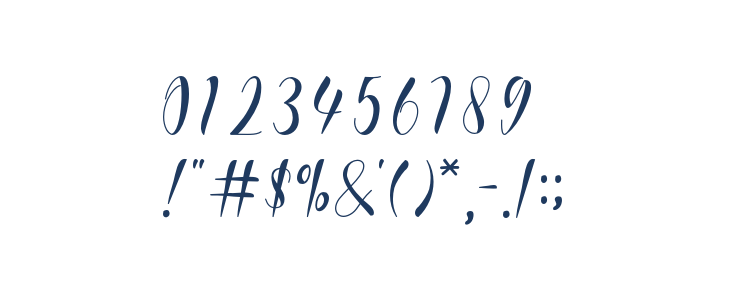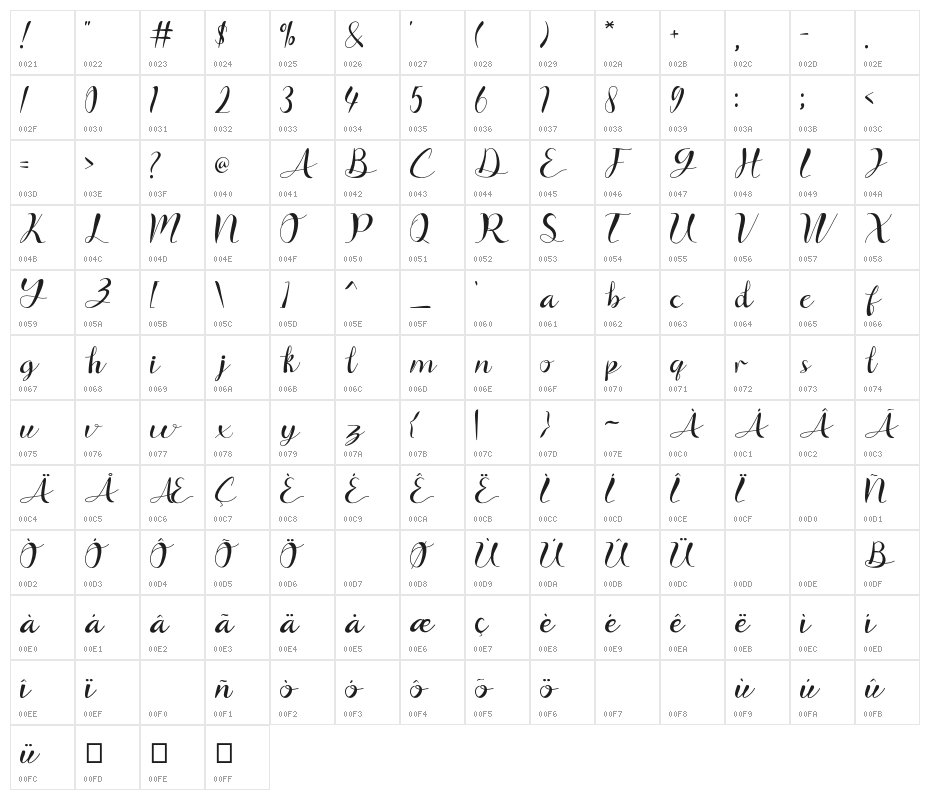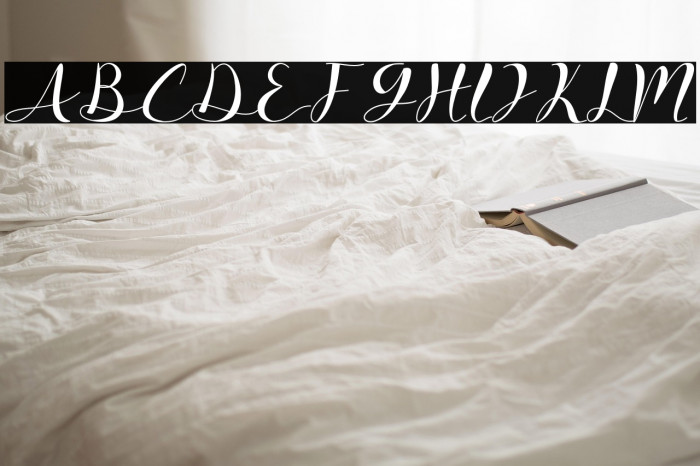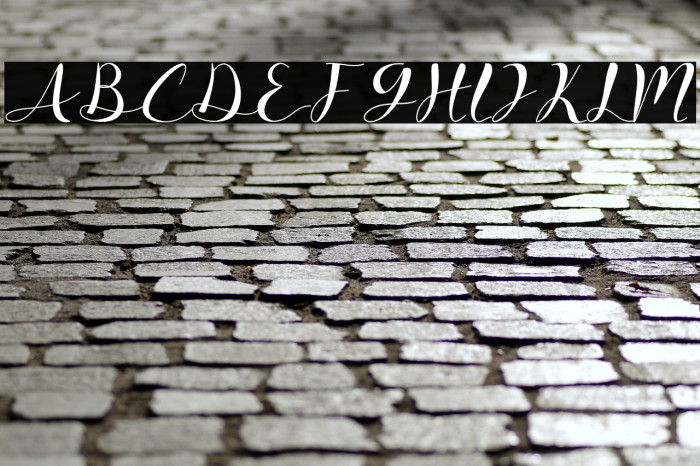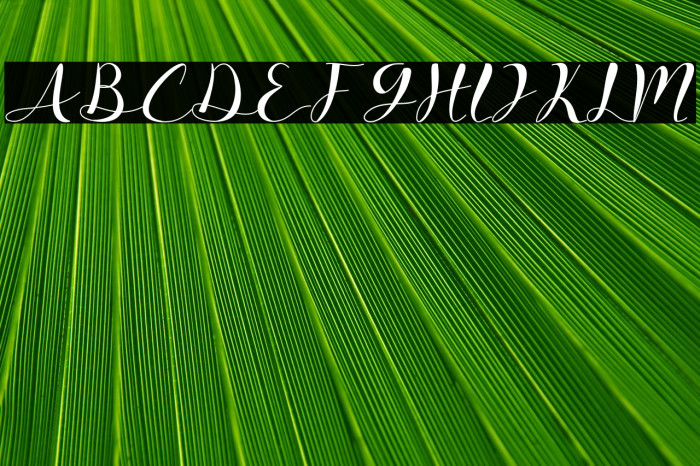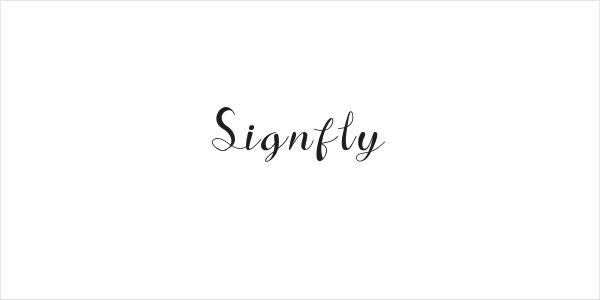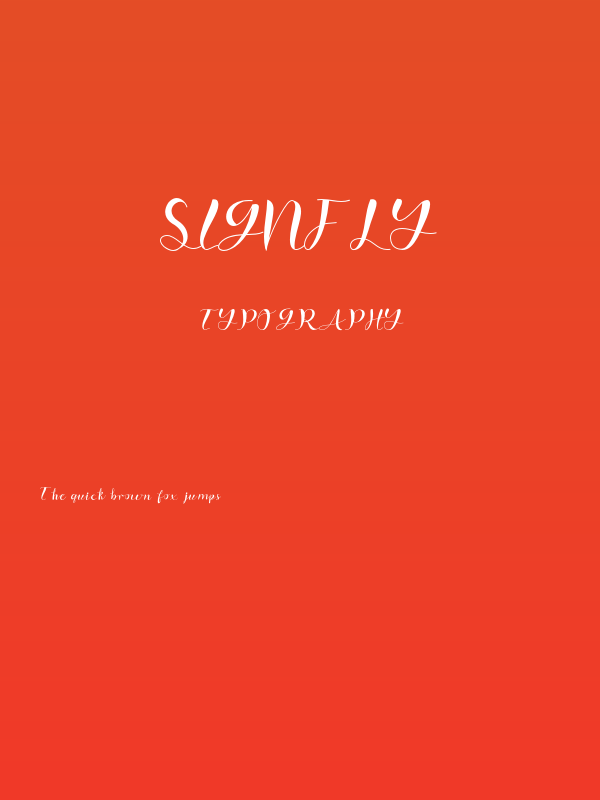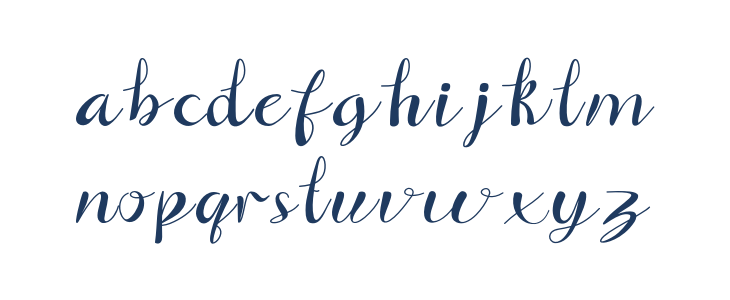
Signfly Font
Signfly Description
This elegant script font features flowing, cursive letterforms with a sophisticated and artistic flair. The uppercase letters are characterized by sweeping curves and delicate loops, while the lowercase letters maintain a graceful continuity. The numbers and special characters are designed to complement the overall style, adding a touch of refinement. The font's strokes vary in thickness, providing a dynamic contrast that enhances its visual appeal. This font is ideal for projects that require a touch of elegance and creativity, such as invitations, branding, and decorative designs.
| Proposed Projects | Ideal for wedding invitations, branding, greeting cards, and decorative designs. |